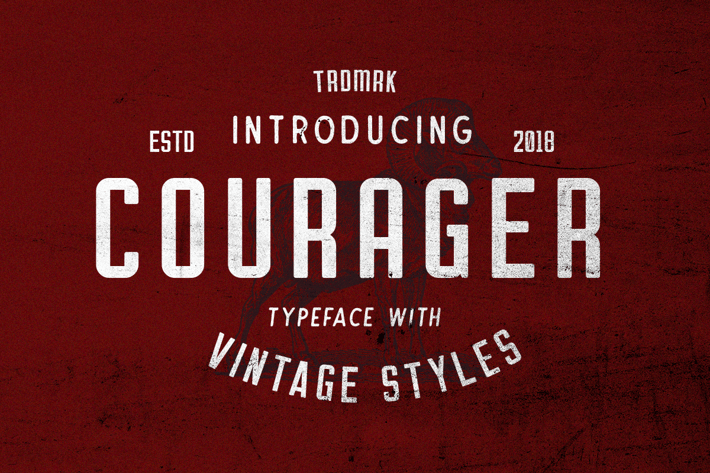
Courager Typeface (8 Fonts!)
Courager is a family of 4 sans serif font designed with carefully handcrafted. Also suitable for branding, T-shirt, Wedding Invitation, Vintage Design, Logotype, and any project. With three style make you easier to design everythings, and a sans bonus to make better design.